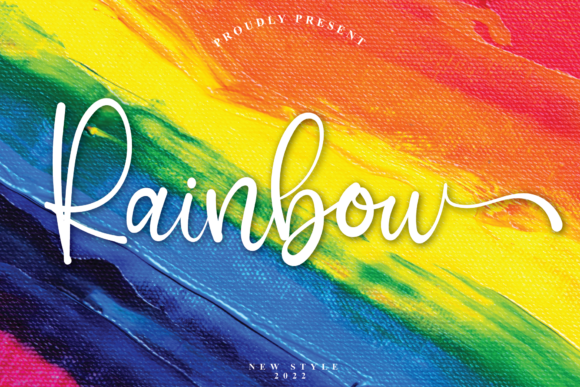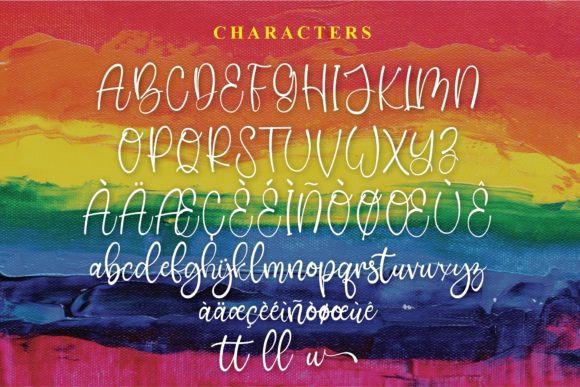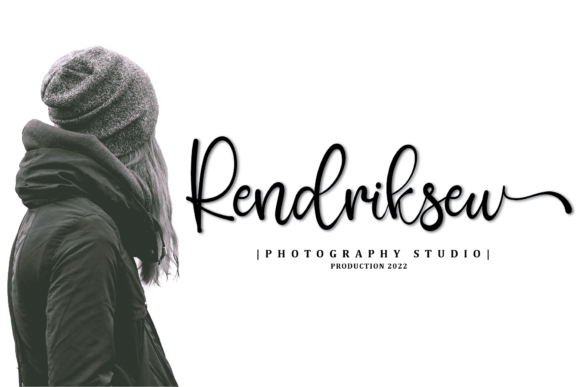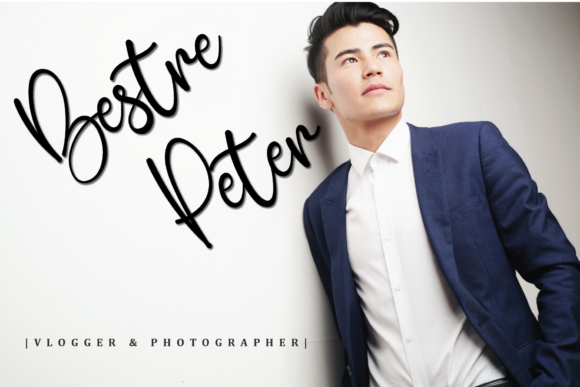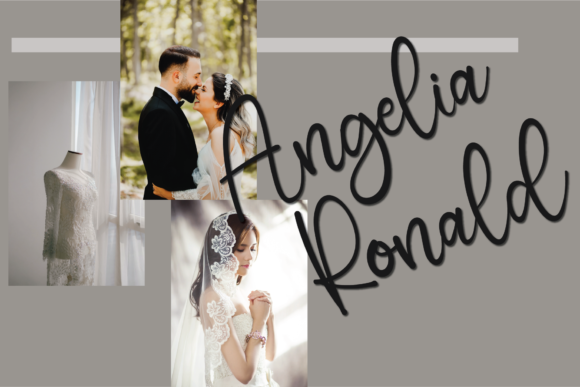
About Rainbow Font
It sounds like you’re describing a versatile and accessible handwritten font, perfect for a wide range of products. The fact that it’s PUA encoded is a great feature, as it allows users to easily access a variety of glyphs and ligatures for enhanced customization and creative possibilities.
With its flexibility, this font seems well-suited for various design needs. Whether you’re working on branding, product packaging, labels, social media graphics, or any other project, the font’s adaptability makes it a valuable tool for designers looking for a universal solution.
Incorporating PUA encoding ensures that users can explore and utilize the full range of amazing glyphs and ligatures seamlessly. This feature enhances the font’s accessibility and allows for a more personalized and creative approach to design.
In summary, a handwritten font with PUA encoding capabilities is a versatile asset that can elevate the visual appeal of a diverse range of products. It provides designers with the tools to create unique and customized designs, making it a valuable addition to the toolkit for various design projects.